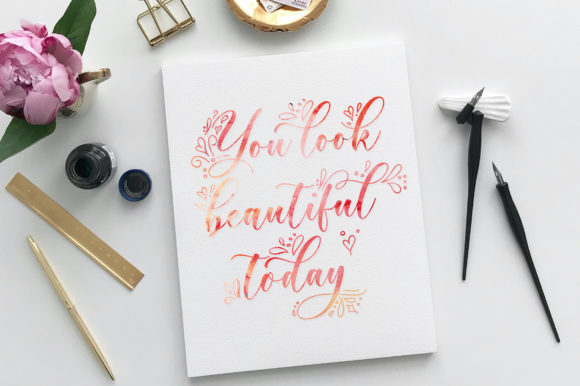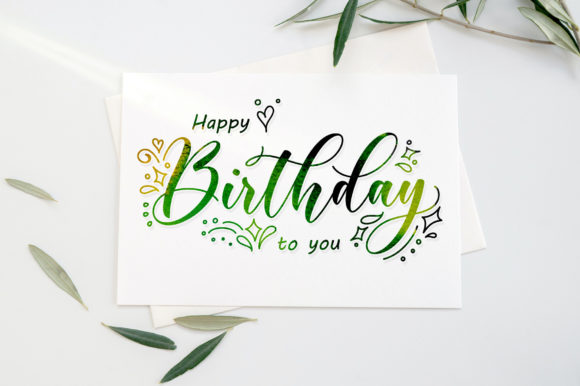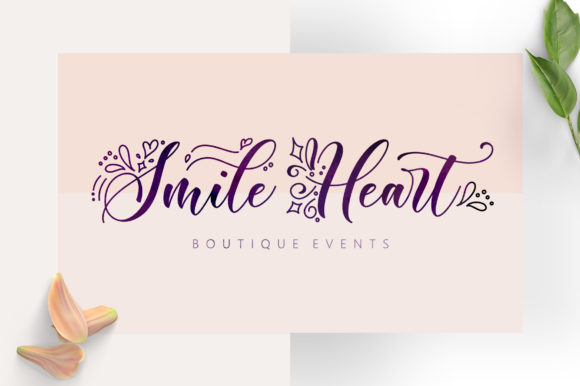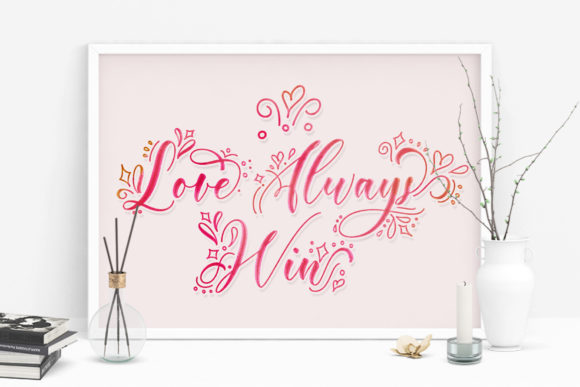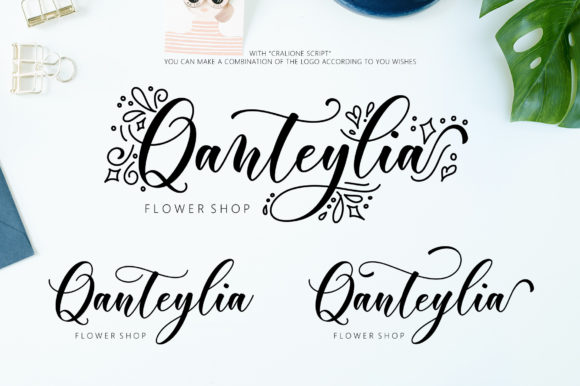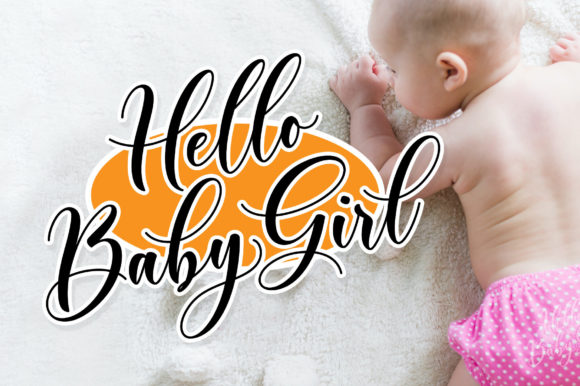
Introduction to Cralione Script Font Font
Have you ever stared at a blank canvas, trying to bring a creative project to life, but struggling to find the perfect font to set the tone? That’s where Cralione Script Font Font comes in – a dazzling script font that’s sure to elevate your design game.
With its high-quality, intricately crafted details, this font is a valuable addition to any designer’s library. Whether you’re working on a free download project or a commercial design, Cralione Script Font Font is the perfect design resource to add a touch of elegance and sophistication. Plus, its PUA encoding makes it easy to access all the glyphs and swashes you need, allowing you to create transparent backgrounds and intricate designs with ease.
Key Features of Cralione Script Font Font
- High-quality design resource perfect for creative projects, including invitations, quotes, and social media posts.
- Unique, hand-drawn script font with a transparent background, allowing for seamless integration with any design element.
- Includes a range of ligatures and swashes, adding an extra layer of creativity and customization to your design project.
- Designed to be versatile and adaptable, making it an excellent choice for a wide range of design applications.
Honest Review: Cralione Script Font Font
As a designer, I’m always on the lookout for high-quality design resources that can elevate my creative projects. The Cralione Script Font Font is one such find. I was excited to try it out and see how it performs.
What works well: ✨ The font is incredibly versatile and can be used for a wide range of design projects, from branding to typography-based art. The script style gives it a unique and elegant feel that’s perfect for creative projects. The font is also free to download, making it a valuable addition to any design resource library.
However, there are a few limitations to consider: ⚠️ The font doesn’t come with a lot of customization options, which may limit its use in more complex design projects. Additionally, the script style may not be suitable for all types of text, such as body copy.
Overall, I’m impressed with the Cralione Script Font Font. While it may have some limitations, its unique style and high-quality design make it a valuable addition to any design library. With its free download and transparent background, it’s a great resource for designers looking to add some elegance to their creative projects.
Getting the Most Out of Cralione Script Font Font
To get the most out of the Cralione Script Font Font, use it with a transparent background to create a clean and elegant design. Experiment with different font sizes and colors to add depth and visual interest to your creative project.
The Cralione Script Font Font is ideal for use in wedding invitations, baby shower invitations, and other high-quality design projects that require a touch of elegance and sophistication.